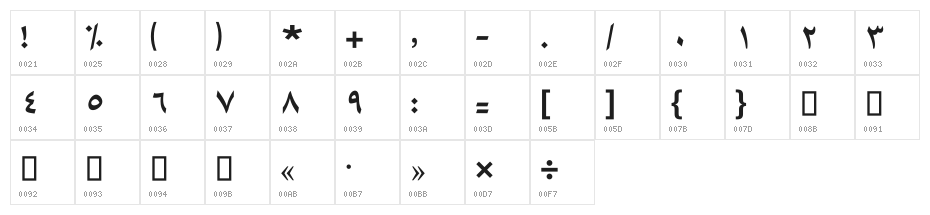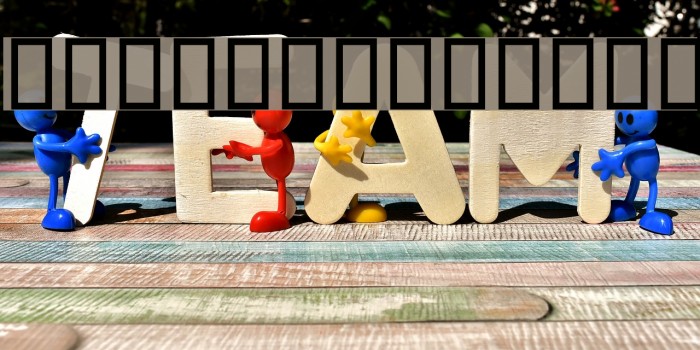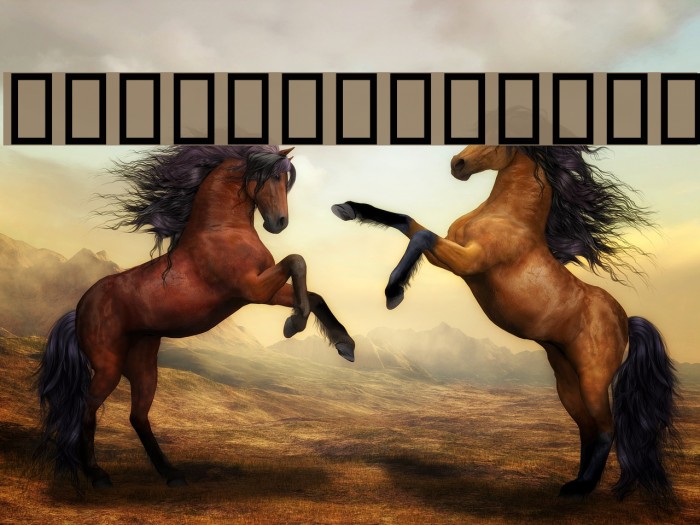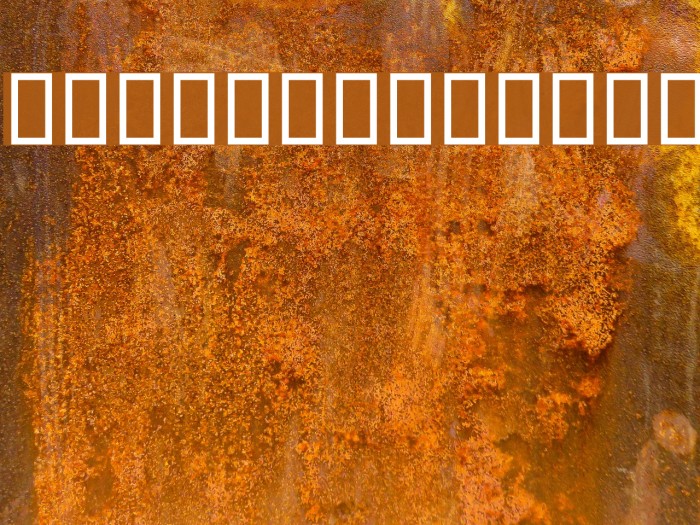
Print Black Font
Print Black Description
This font features a bold and striking design with a strong presence. The characters are thick and have a uniform stroke width, giving them a solid and impactful appearance. The numbers and special characters maintain the same boldness, ensuring consistency across all elements. The style is modern and clean, making it suitable for a variety of applications where readability and emphasis are required. The font's design is straightforward, with no additional embellishments, focusing on clarity and strength.
| Proposed Projects | Ideal for headlines, posters, branding materials, and any design requiring a bold statement. |